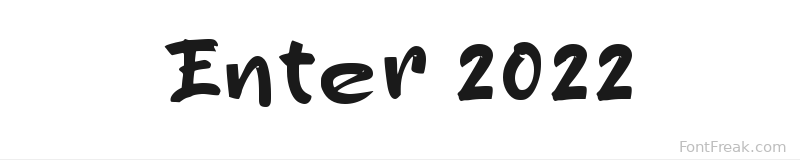
Enter 2022
Enter 2022 by Wahyu Eka Prasetya is a captivating display font that exudes a modern and playful vibe. This typeface falls into the category of decorative fonts, making it an ideal choice for projects that require a touch of creativity and uniqueness. Visually, Enter 2022 features a bold stroke weight with a slightly irregular structure, giving it an organic and hand-crafted feel. The contrast between thick and thin strokes adds dynamism, while its generous spacing ensures clarity, making it easy to read at various sizes.
This font is particularly well-suited for a range of creative applications. For instance, it can bring a refreshing look to wedding invitations, adding a personal touch that resonates with the joy of the occasion. Similarly, Enter 2022 would shine in movie posters, where its expressive style can capture the essence of the film and draw in viewers. Additionally, restaurant menus can benefit from this font, as its playful nature can enhance the dining experience and reflect the establishment's atmosphere. Content creators will also find Enter 2022 invaluable for social media graphics, allowing them to stand out in a crowded digital landscape.
The target audience for Enter 2022 includes graphic designers, small business owners, and content creators who seek to elevate their visual identity with a font that stands out. With its approachable and artistic flair, this typeface caters to those looking to make a memorable impression.
In summary, Enter 2022 font free download offers a unique combination of charm and readability, making it an excellent choice for anyone looking to add a distinctive element to their projects. Its versatility and engaging design ensure it will be a favorite among creatives for years to come.